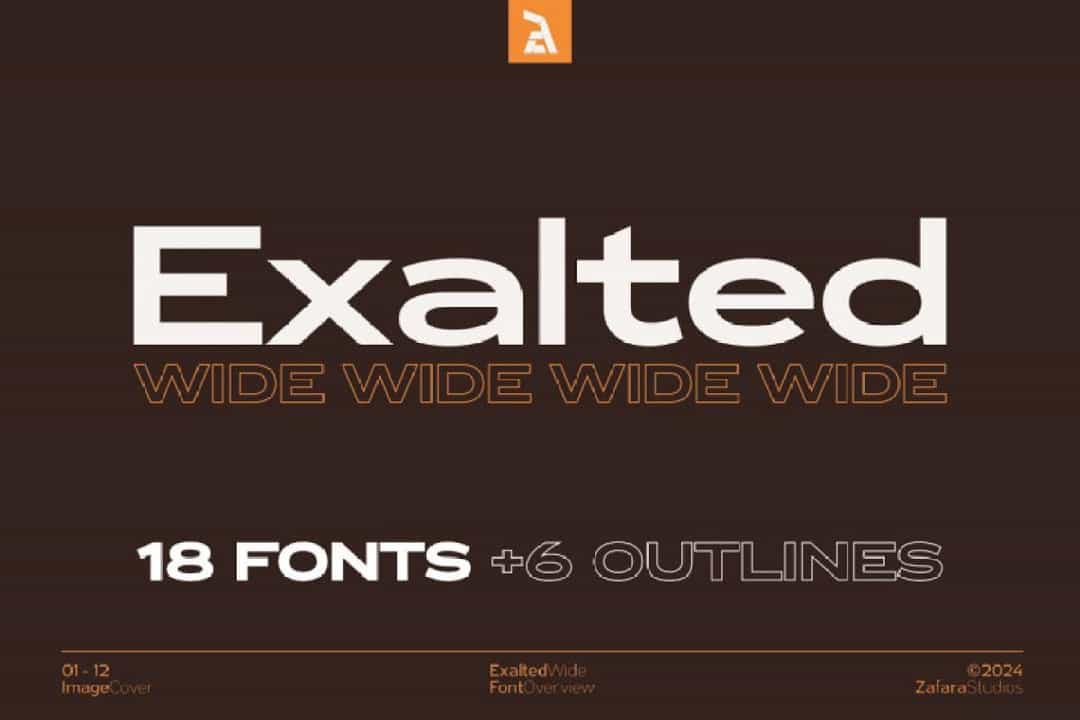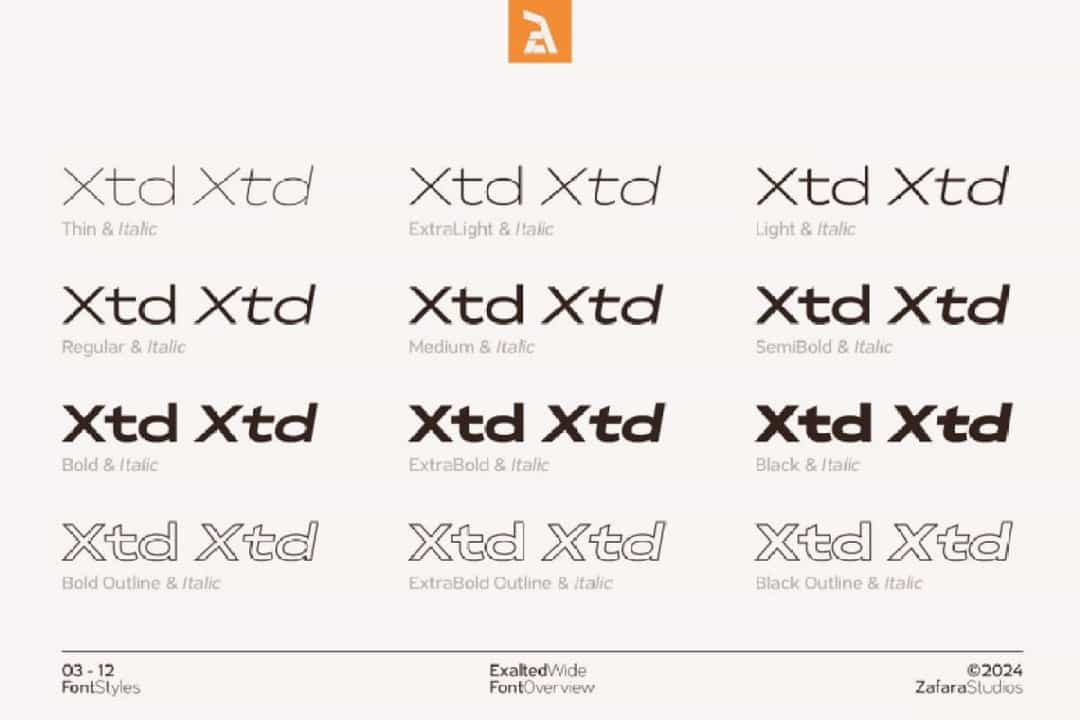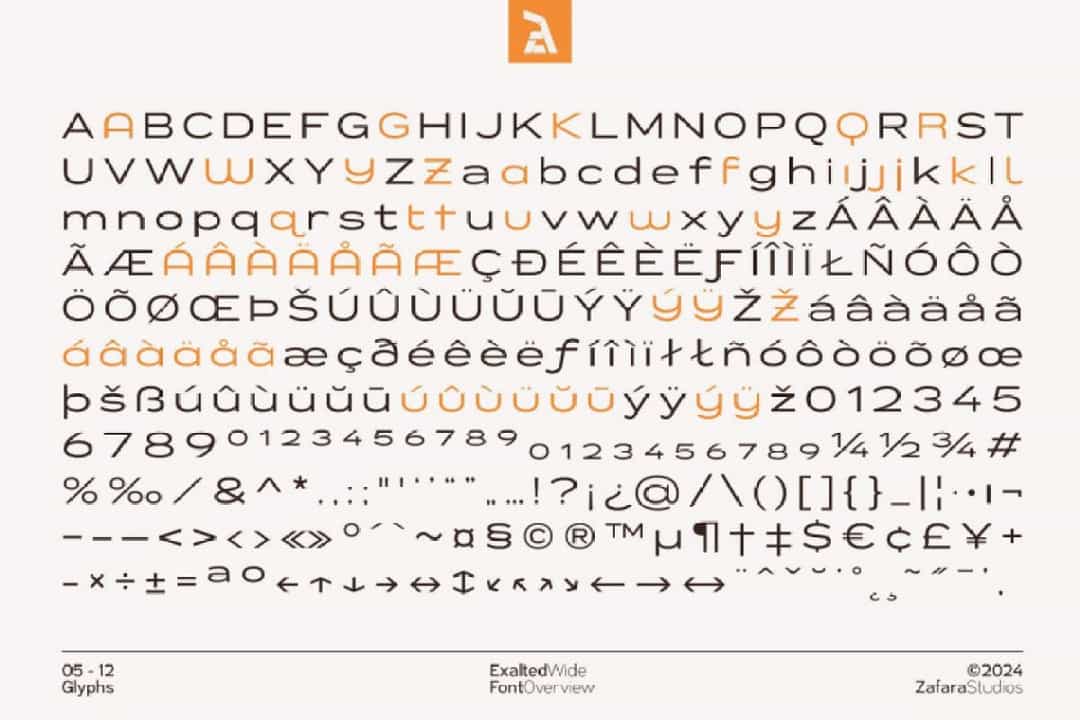
Exalted Wide is a sans serif font that exudes strength and clarity. It’s sleek lines and distinct angles give off a feeling of accuracy and authority. Drawing inspiration from circles, squares and triangles Exalted boasts shapes, with a consistent stroke width that highlights the precise structure of the characters.